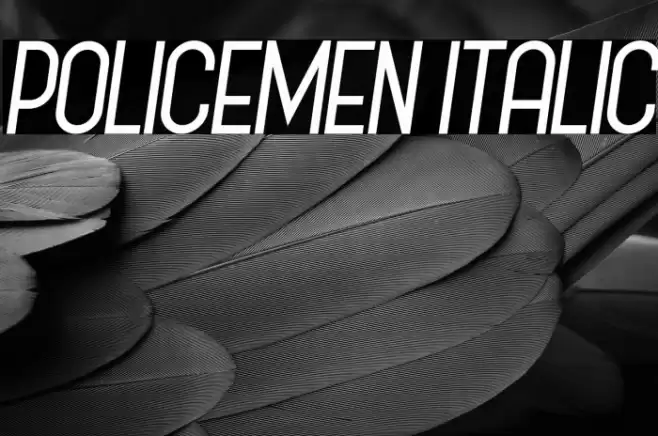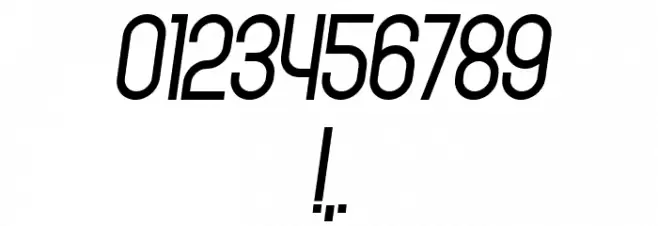
Policemen Italic Font
Policemen Italic Description
This font exhibits a modern, italicized style with a sleek and elongated appearance. The characters are slightly condensed, giving it a streamlined look. The uppercase and lowercase letters maintain a consistent slant, enhancing the dynamic feel of the typeface. The numbers follow the same italicized pattern, ensuring uniformity across all characters. The special characters are designed to match the overall aesthetic, providing a cohesive visual experience. The font's clean lines and moderate contrast make it suitable for various design applications.
A modern, italicized font with a sleek, condensed appearance from Uncategorized fonts.
- Proposed Projects: Ideal for branding, advertising, and editorial design projects where a modern and dynamic look is desired.
- Use Case: Headlines, Logos, Advertising